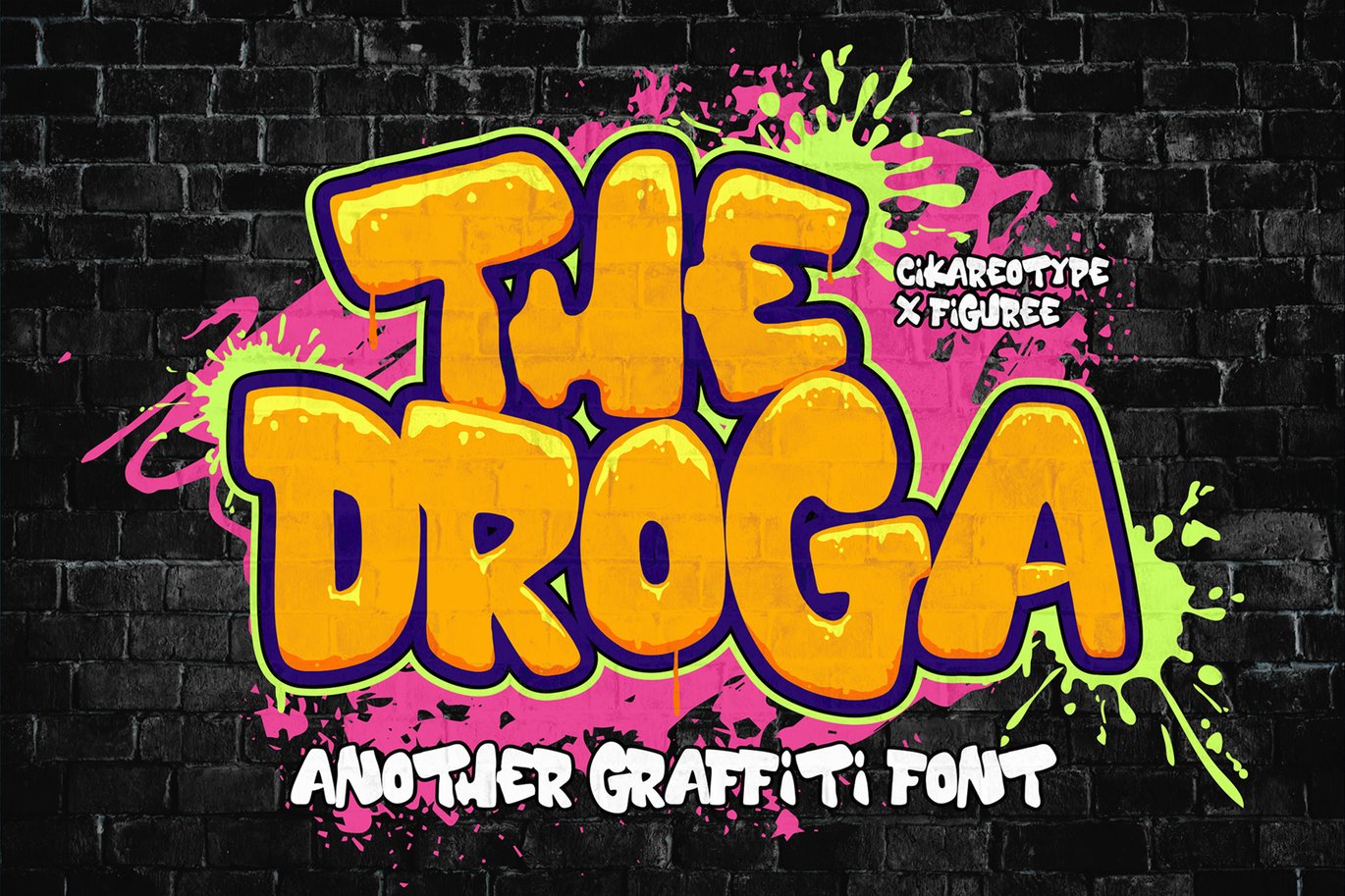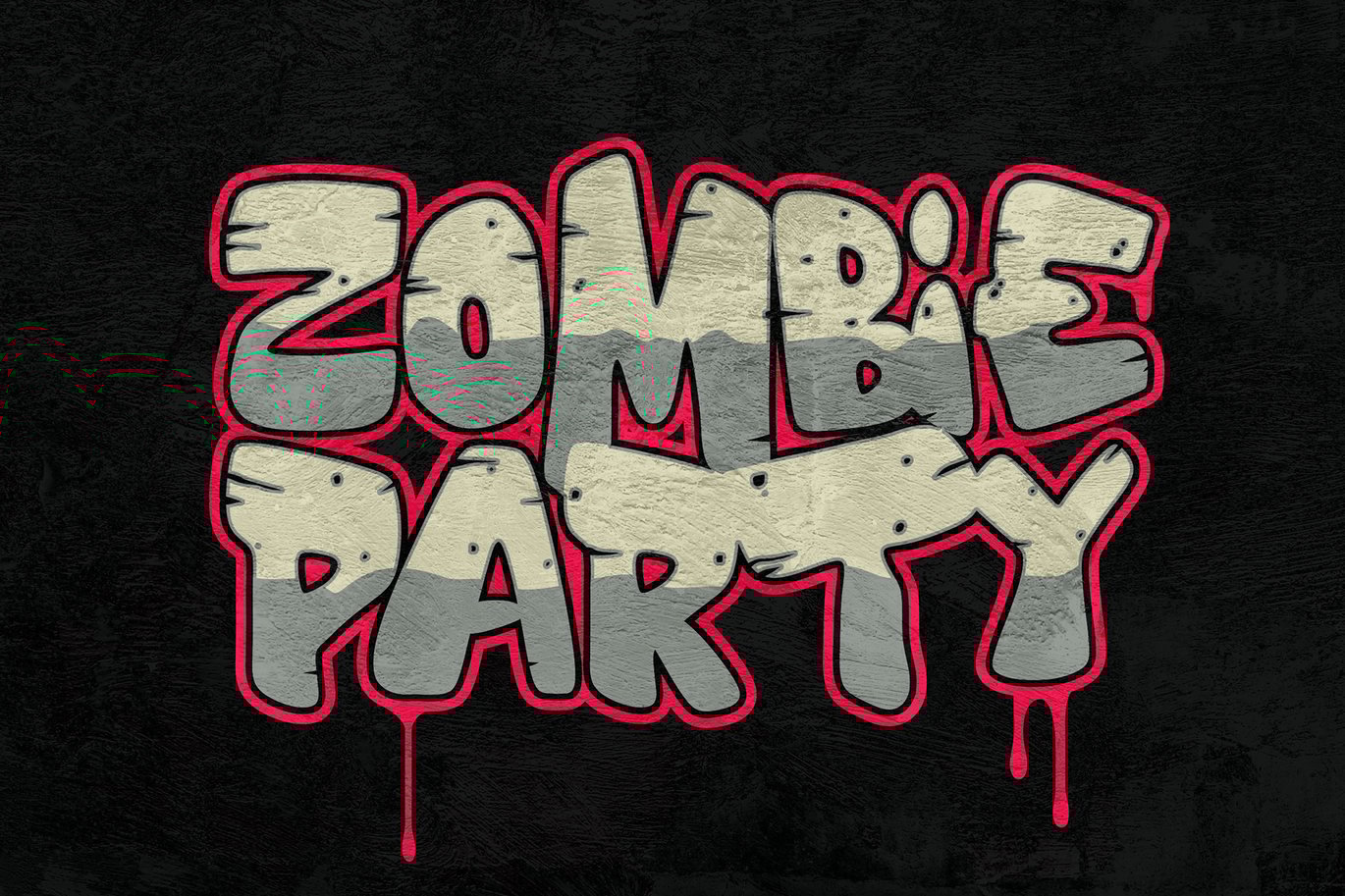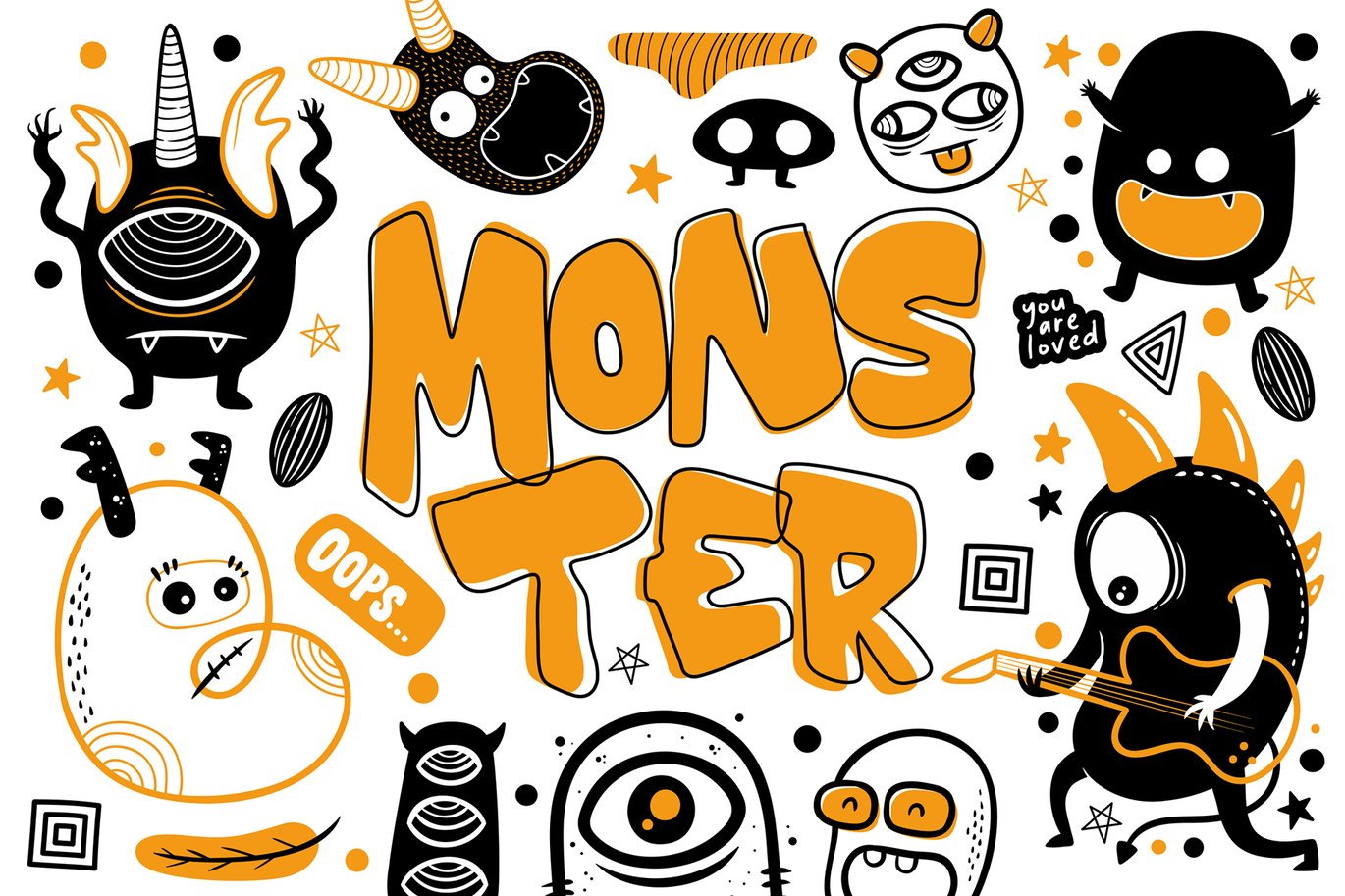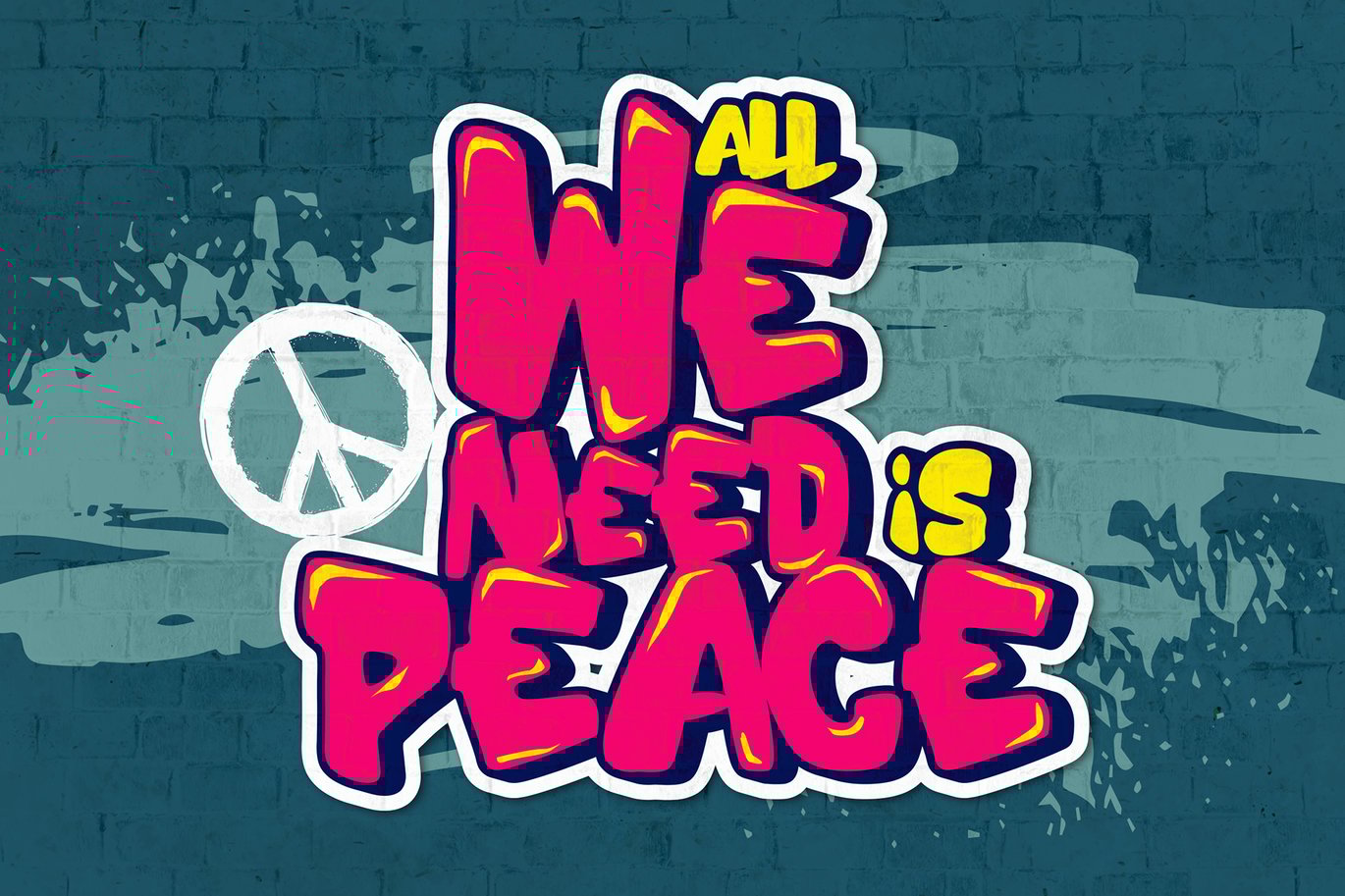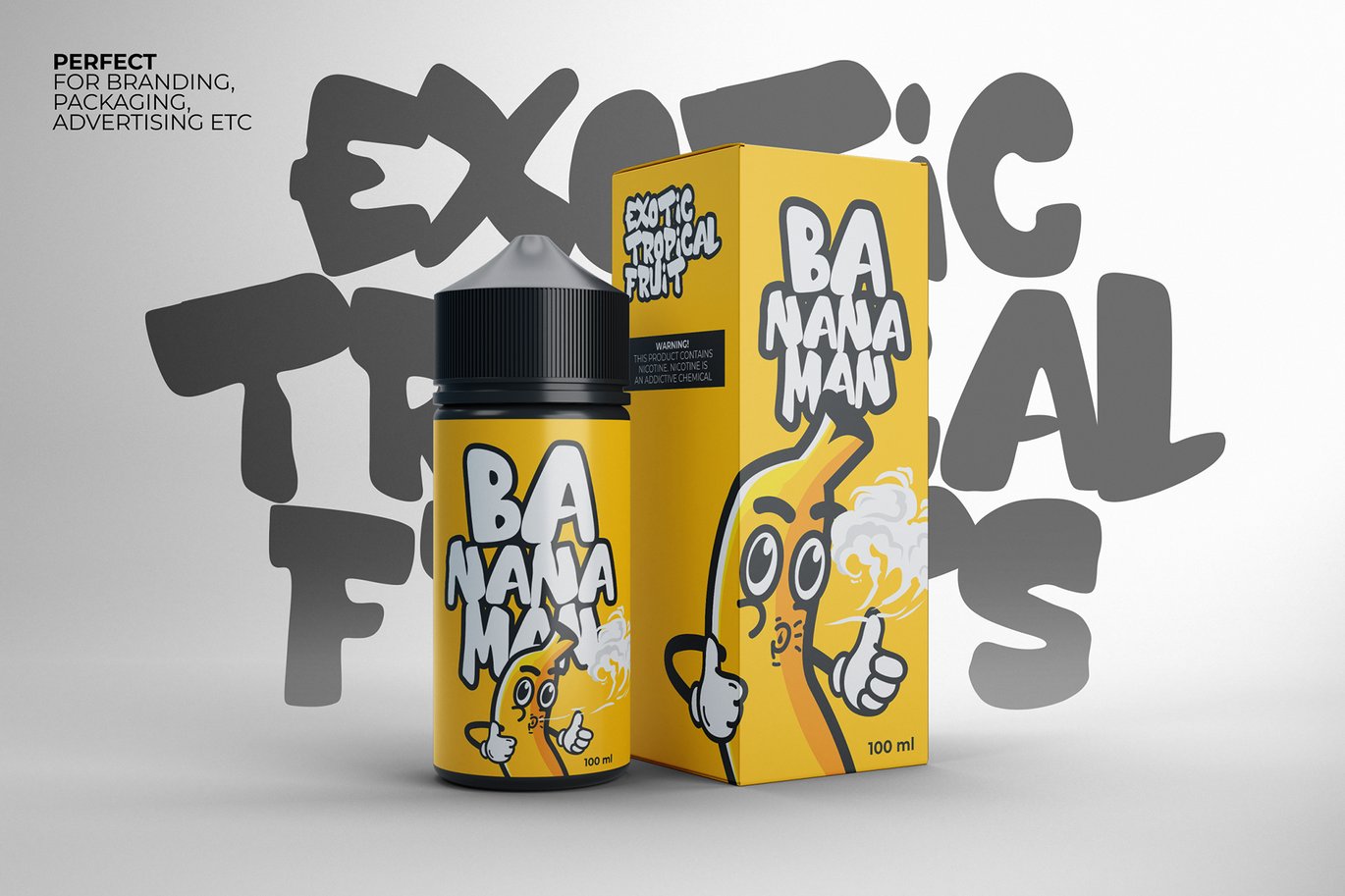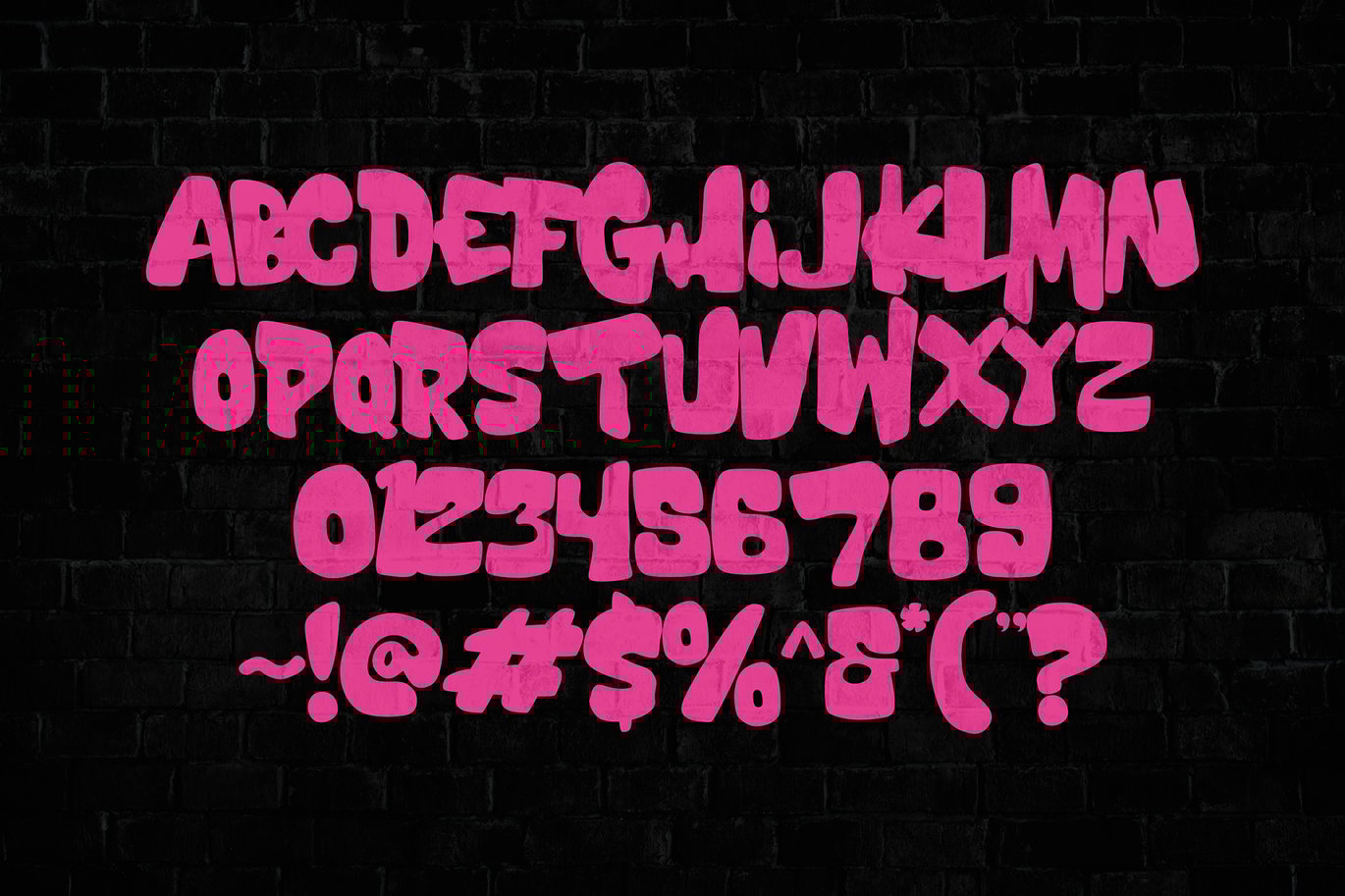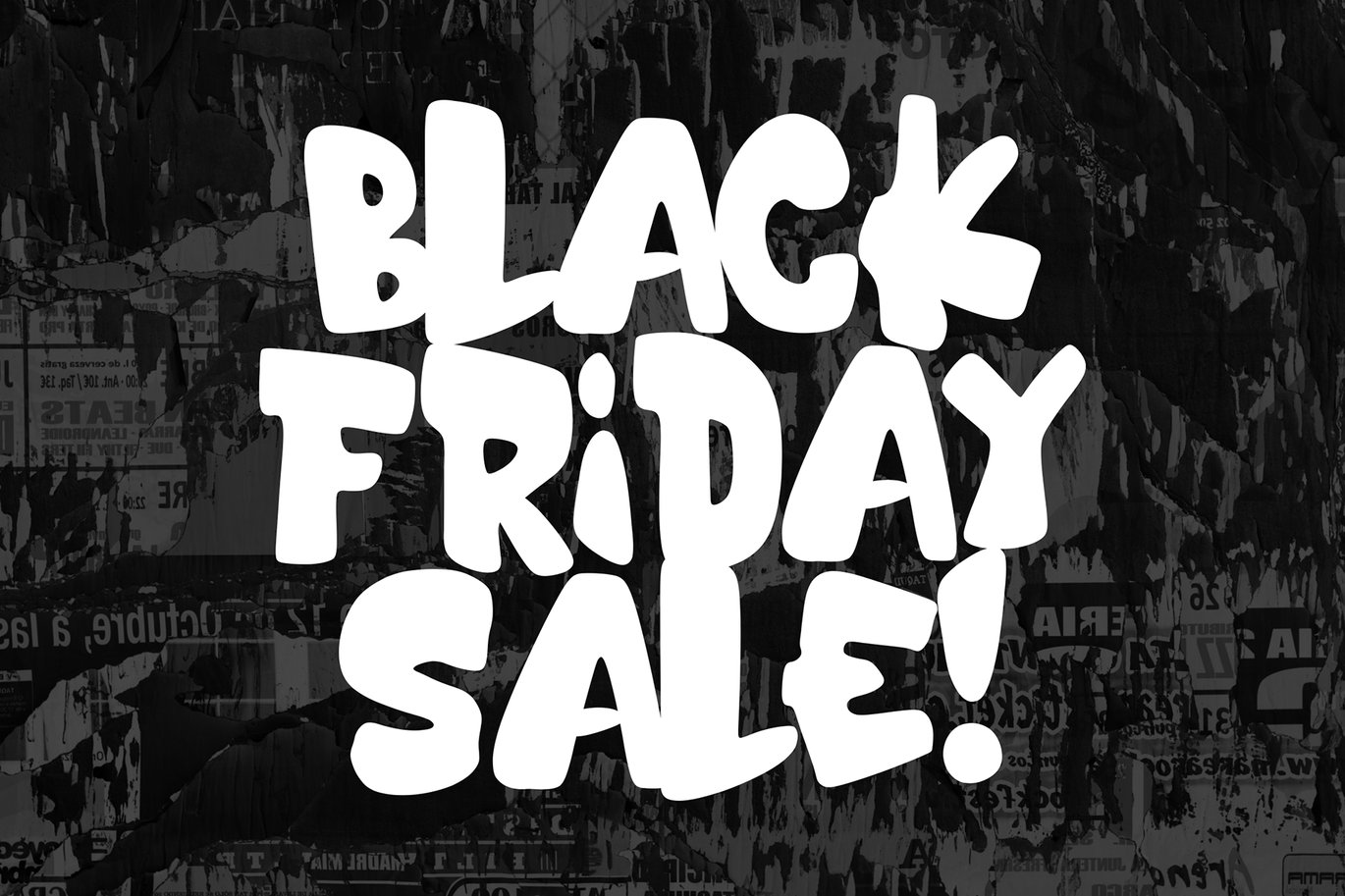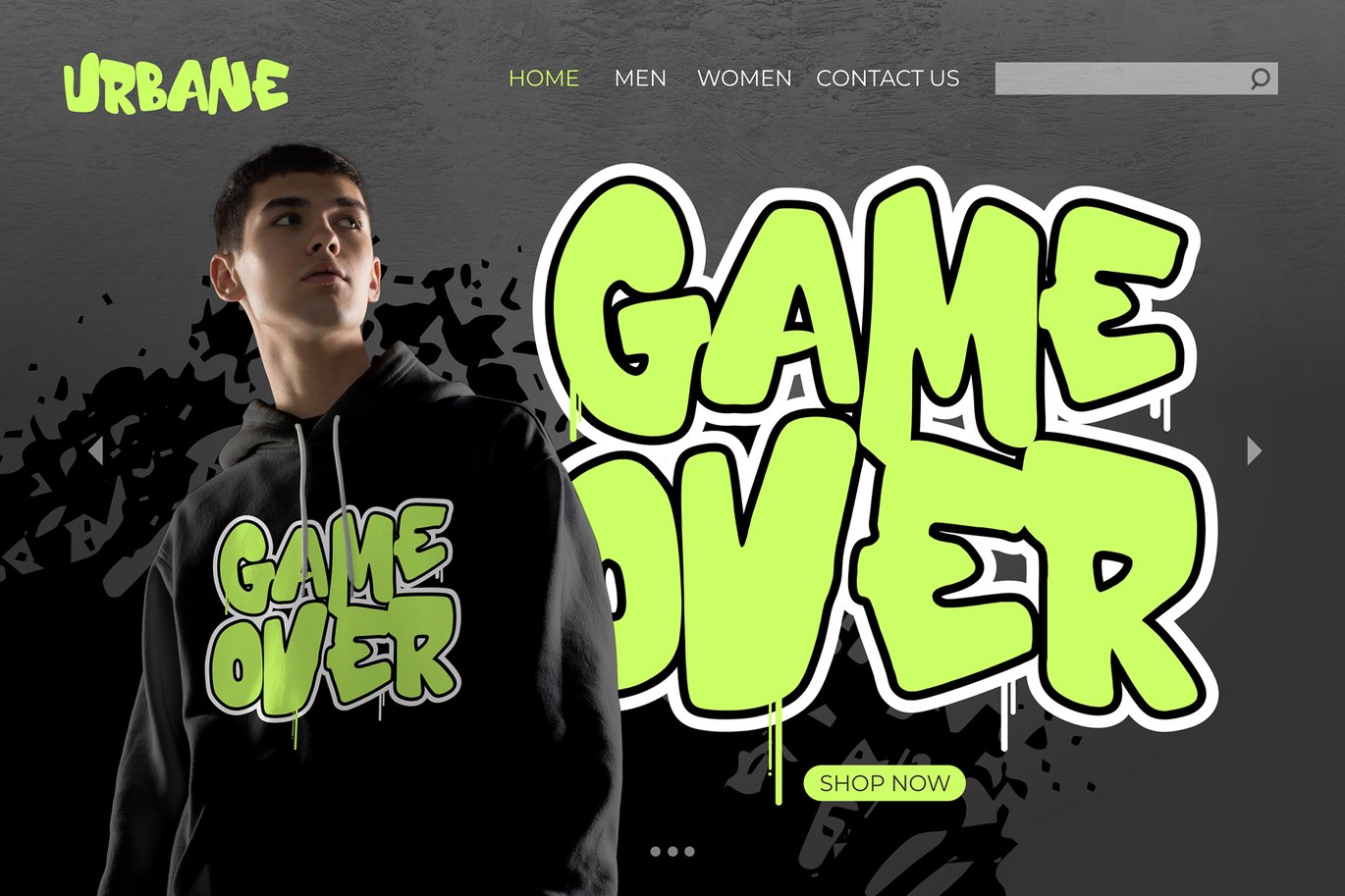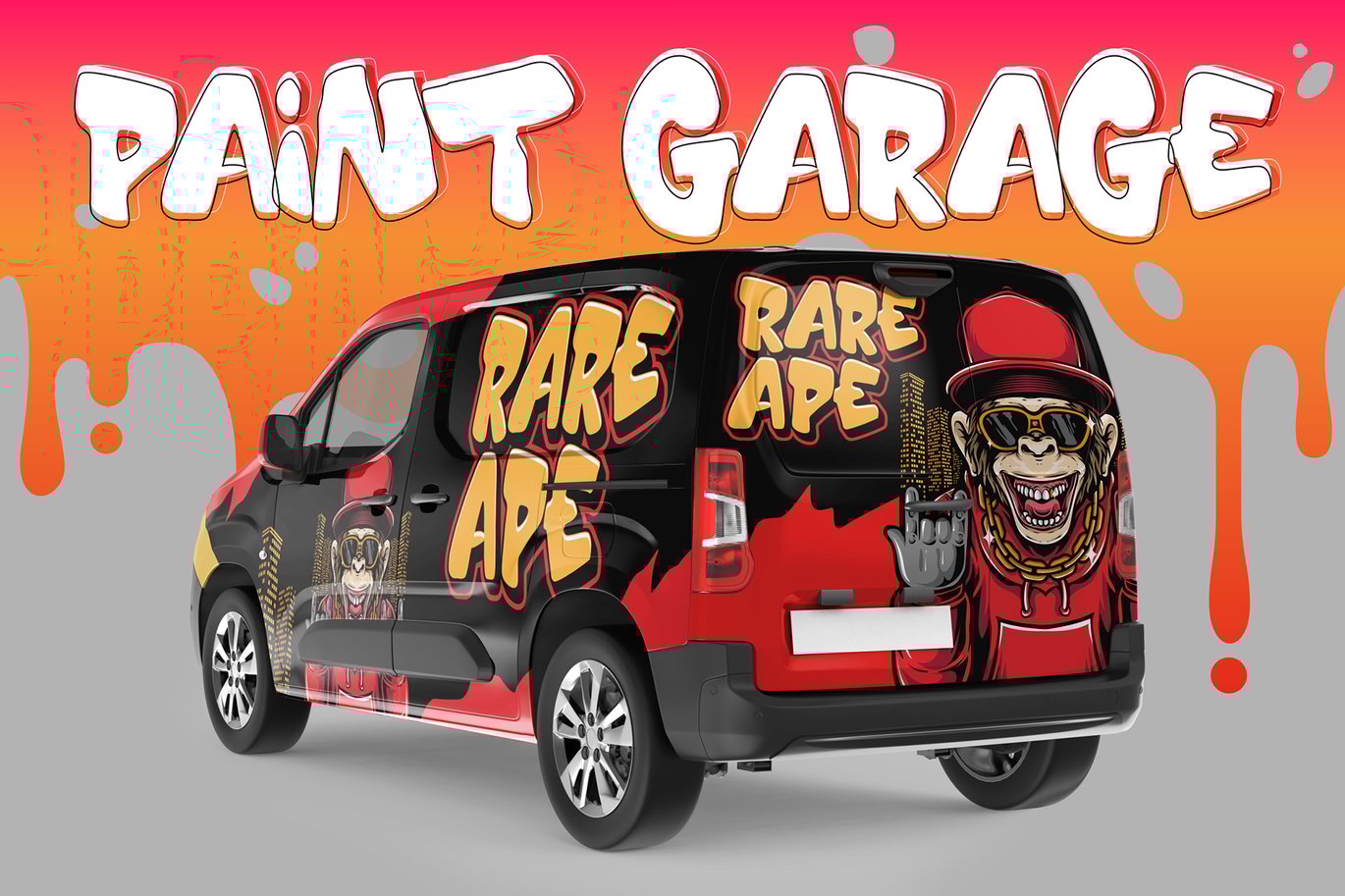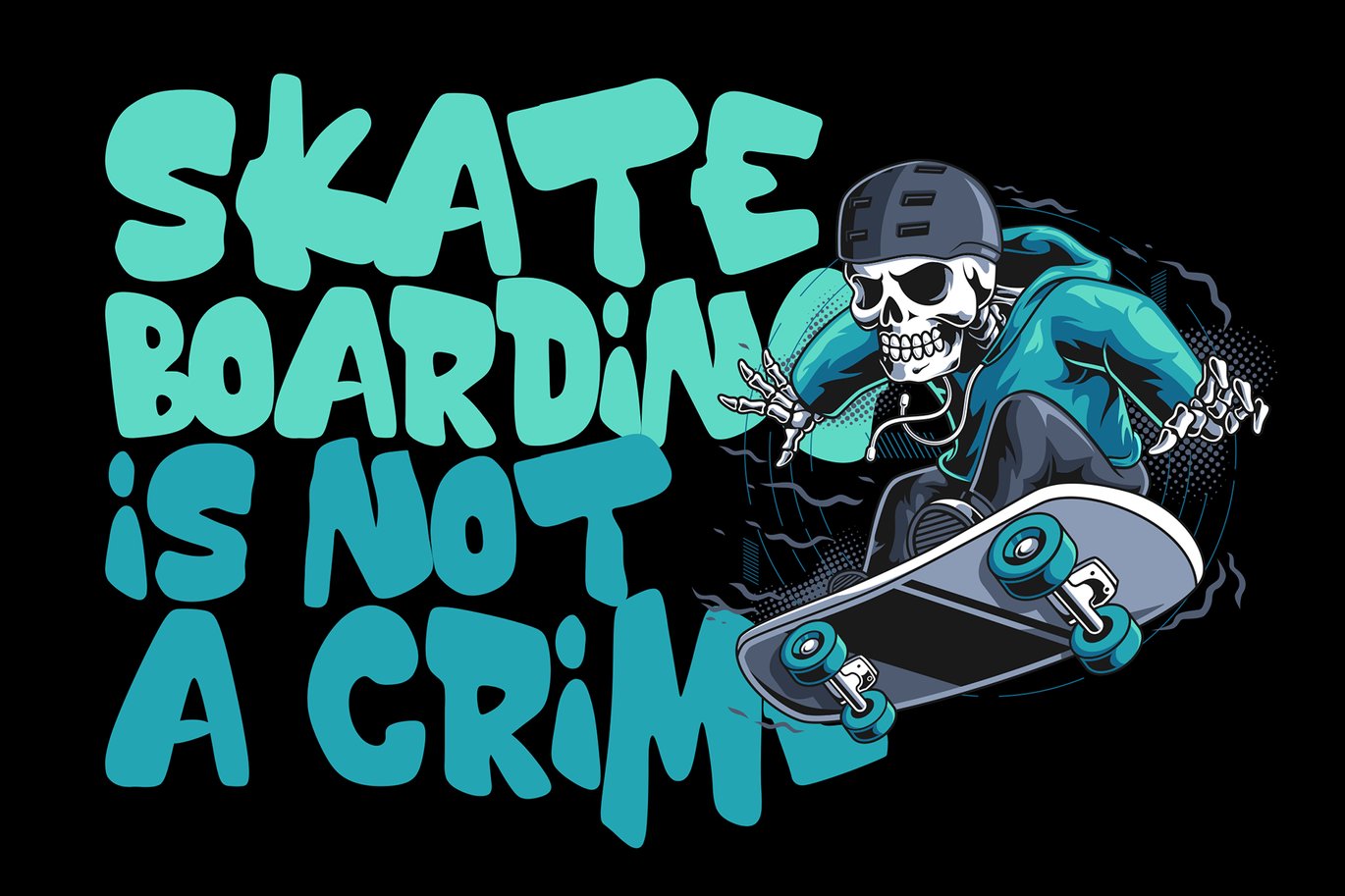
The Droga – Thick Graffiti Font
The Droga is a spectacular Display font with a Fatty and Thick graffiti style for your design to look awesome. It will elevate a wide range of design projects to the highest level, be it branding, headings, wedding designs, invitations, signatures, logotypes, wall art illustrations, labels, and much more!